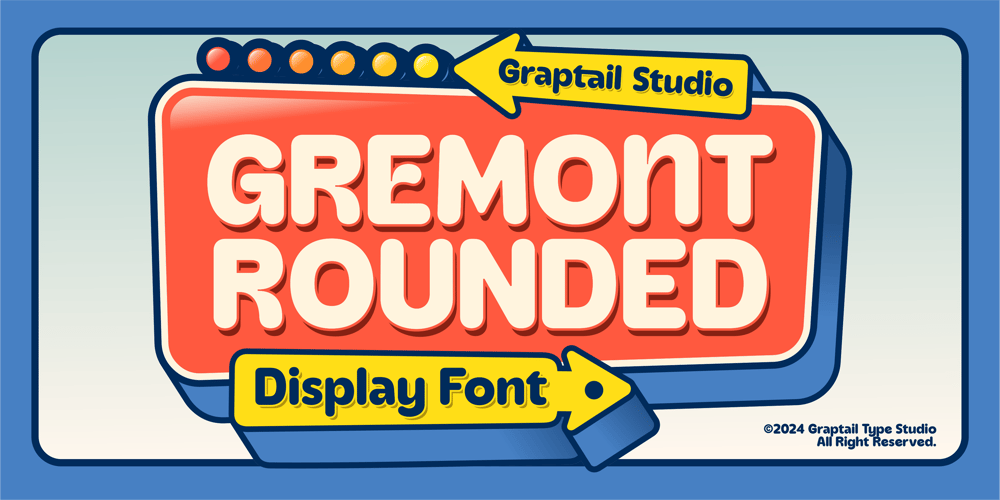
Gremont
Gremont font
Gremont Font Family was designed by Teuku Deky Firnanda and published by Graptail. Gremont contains 1 styles and family package options. Gremont Rounded is a sans-serif typeface that exudes retro charm with a modern twist. Combining smooth, rounded lines with a distinct vintage vibe, Gremont Rounded is the perfect choice for designs seeking a balance between nostalgic warmth and contemporary freshness.With its harmonious letter proportions and gently rounded corners, this font offers high readability and an inviting aesthetic. Gremont Rounded is ideal for various applications, from branding and posters to marketing materials that need a friendly and memorable character.The retro essence of Gremont Rounded is evident in its letterforms, inspired by typography from the 1970s yet updated to remain relevant in the digital age. It’s the perfect choice to add a touch of nostalgia to your designs while maintaining a fresh and modern look.